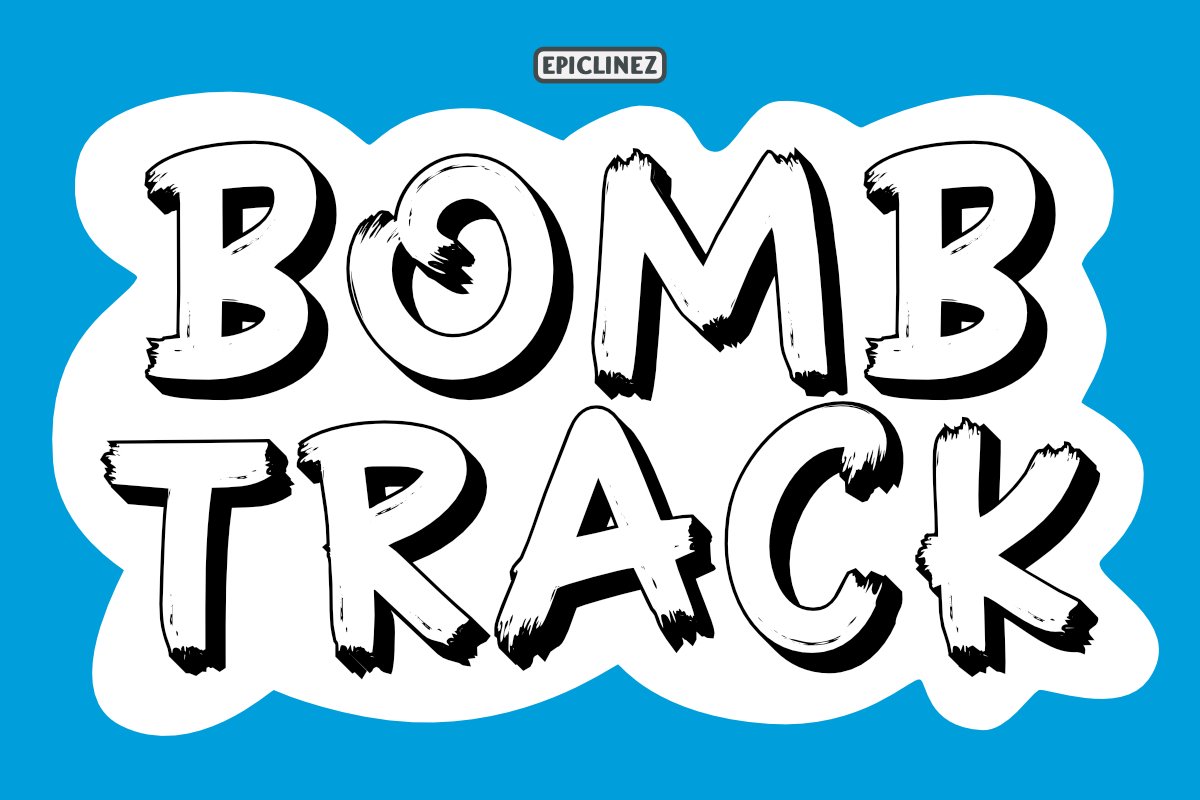
Bombtrack - Display Font
Bombtrack is a reference to hip hop terminology where the word 'bomb' means 'the greatest'. making the font title literally mean 'the greatest font' lol.
Anyway, this kind of typeface proves its usefulness from time to time. With splatter of inks in every glyphs produces moments of awesomeness.